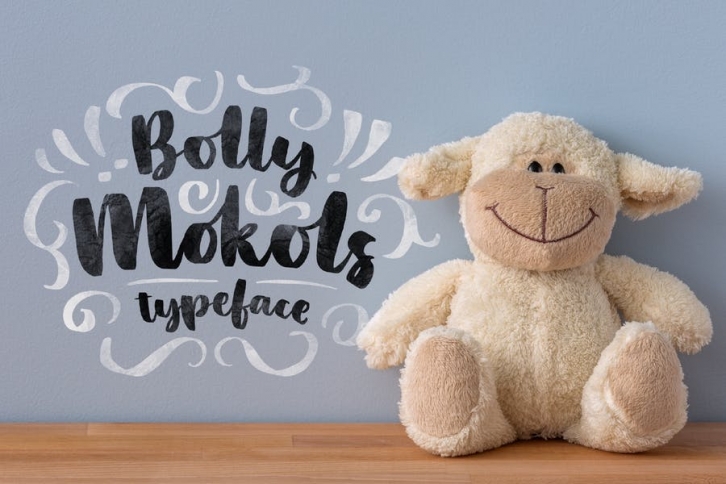
Bolly Mokols FONT Download
Bolly Mokols Font Download
Introducing Bolly Mokols Typeface The letter design that has a funny, relaxed, non-formal concept is perfect for designs that are not so serious and certainly interesting and unique. This font is very good and very suitable for children's design, besides that Bolly Mokols font is also suitable for writing quotes and wedding fonts. Bolly Mokols is perfect for your new and unique collection of fonts.